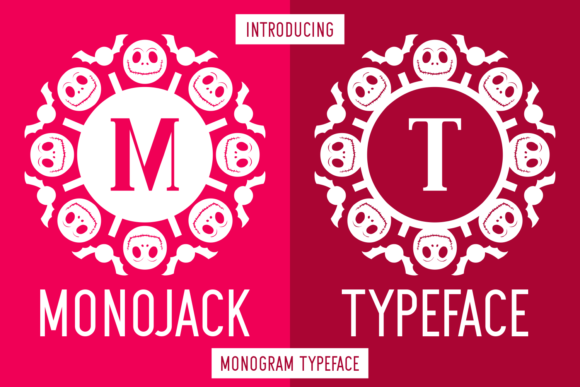
Monojack Font: A Timeless Decorative Font for Stunning Designs
When it comes to creating visually appealing designs, the right font can make all the difference. If you’re looking for a font that can add a touch of elegance and sophistication to your project, look no further than Monojack Font. In this article, we’ll take a closer look at Monojack Font, its features, and why it’s the perfect choice for creating eye-catching logos, branding, and quotes.
What is Monojack Font?
Monojack Font is a lovely and timeless decorative font that has been designed to add a touch of beauty to your designs. Every character in the font has a unique and elegant touch that will make your design come alive. Whether you’re creating a logo, branding materials, or quotes, Monojack Font is the perfect choice.
Uses of Monojack Font
Monojack Font is a versatile font that can be used in a variety of design projects. Here are some of the most popular uses of Monojack Font:
- Logo Design: Monojack Font is perfect for creating stunning logos that will make your brand stand out. The font’s elegant and sophisticated design makes it ideal for creating logos for luxury brands, fashion brands, and more.
- Branding: Monojack Font can be used to create beautiful branding materials such as business cards, letterheads, and brochures. The font’s timeless design ensures that your branding materials will look great for years to come.
- Quotes: Monojack Font is also perfect for creating stunning quotes that will grab the attention of your audience. The font’s elegant design makes it ideal for creating inspirational quotes, motivational quotes, and more.
Features of Monojack Font
Monojack Font has a number of features that make it the perfect choice for designers. Here are some of the key features of Monojack Font:
- Timeless Design: Monojack Font has a timeless design that will never go out of style. The font’s elegant and sophisticated design ensures that your designs will look great for years to come.
- Beautiful Characters: Every character in Monojack Font has a unique and elegant touch that will make your design come alive.
- Easy to Read: Monojack Font is easy to read, making it perfect for creating designs that need to be read quickly and easily.
- Versatile: Monojack Font is a versatile font that can be used in a variety of design projects.
Benefits of Using Monojack Font
There are many benefits to using Monojack Font in your designs. Here are some of the key benefits of using Monojack Font:
- Unique Designs: Monojack Font allows you to create unique and stunning designs that will make your brand stand out.
- Professional Look: Monojack Font gives your designs a professional look that will impress your audience.
Tips for Using Monojack Font
Here are some tips for using Monojack Font in your designs:
- Use it for Headings: Monojack Font is perfect for creating stunning headings that will grab the attention of your audience.
- Experiment with Colors: Monojack Font looks great in a variety of colors, so don’t be afraid to experiment and find the perfect color for your design.
- Pair it with Other Fonts: Monojack Font can be paired with other fonts to create a unique and stunning design.
- Use it for Quotes: Monojack Font is perfect for creating stunning quotes that will inspire and motivate your audience.
In conclusion, Monojack Font is a lovely and timeless decorative font that is perfect for creating eye-catching logos, branding, and quotes. The font’s elegant and sophisticated design makes it ideal for designers who want to create stunning designs that will make their brand stand out. With its versatility, ease of use, and cost-effectiveness, Monojack Font is a must-have font for any designer.